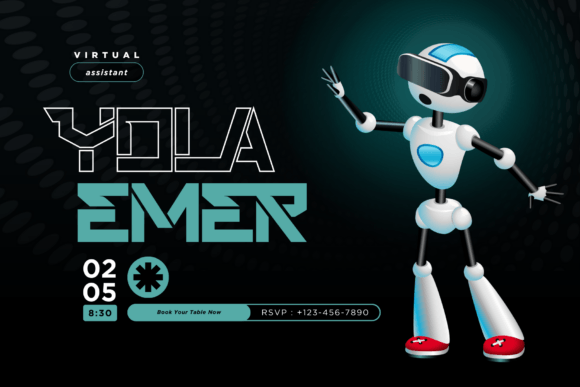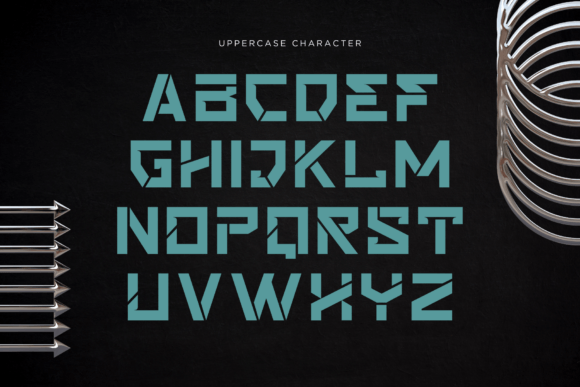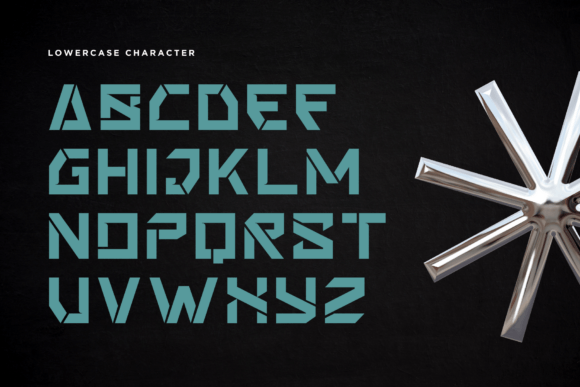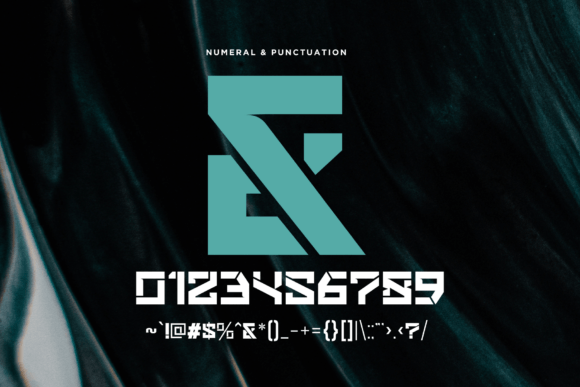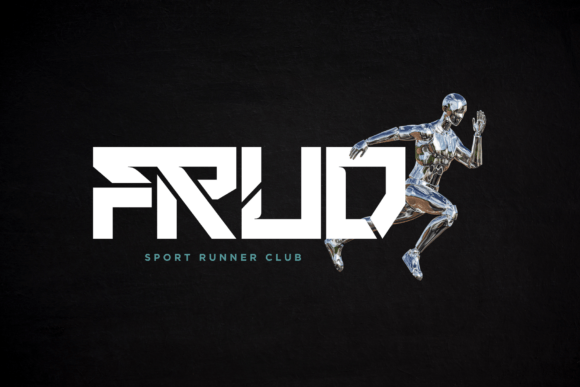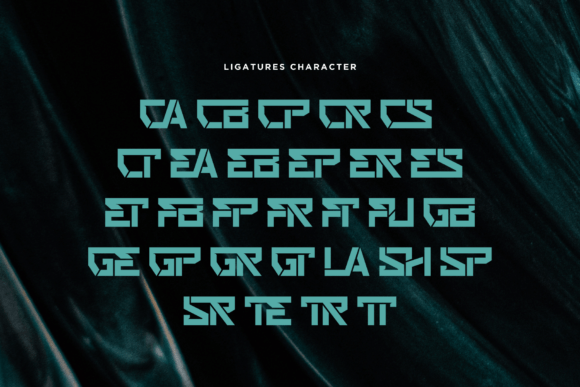
Unleash the Power of Groke Sport Font: Elevate Your Designs with a Unique Typography Experience
In the realm of design, typography plays a pivotal role in conveying messages, evoking emotions, and creating lasting impressions. Among the myriad of fonts available, the Groke Sport Font stands out as a beacon of creativity and versatility. This captivating typeface is not just a font; it’s a design statement that can transform your projects, making them more engaging, distinctive, and memorable. Whether you’re a seasoned designer or a crafty DIY enthusiast, the Groke Sport Font is your go-to choice for a harmonious blend of style and functionality.
The Allure of Groke Sport Font
The Groke Sport Font boasts a unique charm that sets it apart from the rest. Its design is meticulously crafted to offer a fresh and dynamic look that can breathe new life into any project. From logo creation and branding to social media posts, ads, and product designs, this font adapts seamlessly, ensuring your message is delivered with clarity and impact. The allure of Groke Sport Font lies in its ability to strike a perfect balance between modernity and approachability, making it an excellent choice for designers aiming to leave a mark.
Perfect for Logo Creation and Branding
Logos are the face of a brand, and the typography used can significantly influence how a brand is perceived. The Groke Sport Font, with its distinctive and stylish appeal, is perfectly suited for logo creation. It offers a unique blend of sophistication and playfulness that can help brands stand out in a crowded marketplace. When used in branding, this font ensures consistency and recognizability across various platforms, reinforcing the brand’s identity and values.
Shine on Social Media
In the digital age, social media has become an indispensable tool for communication and marketing. The Groke Sport Font can add a unique flair to your social media posts, making them more eye-catching and engaging. Its contemporary design ensures that your content stands out in a sea of information, encouraging interaction and boosting your online presence. Whether you’re posting updates, promotions, or stories, using the Groke Sport Font can elevate your social media strategy and help you connect with your audience more effectively.
Elevate Your Ads and Product Designs
Advertising and product design are critical areas where typography can make or break the visual appeal. The Groke Sport Font offers a magnetic transformation for your ads and product designs, turning them into visually stunning creations that capture attention. Its versatility allows it to complement various design elements, ensuring a cohesive and appealing look that resonates with your target audience. By incorporating the Groke Sport Font into your ads and product designs, you’re not just enhancing their aesthetic appeal; you’re also improving their effectiveness in conveying your message and driving engagement.
A True Font of Inspiration
The Groke Sport Font is more than just a typeface; it’s a source of inspiration for designers and crafters looking to push the boundaries of creativity. Its innovative design encourages experimentation and exploration, making it a perfect fit for diverse and innovative design projects. Whether you’re working on a personal project or a professional assignment, this font can inspire you to create something truly unique and impactful.
In conclusion, the Groke Sport Font is a powerful tool in the world of design, offering a unique blend of style, versatility, and creativity. Its captivating allure makes it an excellent choice for a wide range of design projects, from logo creation and branding to social media posts, ads, and product designs. By unleashing the potential of the Groke Sport Font, designers and crafters can elevate their projects, making them more engaging, distinctive, and memorable. So, dive into the world of Groke Sport Font and discover how it can transform your designs, taking them to new heights of creativity and success.
Key Features of Groke Sport Font:
• Unique and captivating design
• Versatile and adaptable for various design projects
• Perfect for logo creation and branding
• Ideal for social media posts, ads, and product designs
• Encourages creativity and innovation